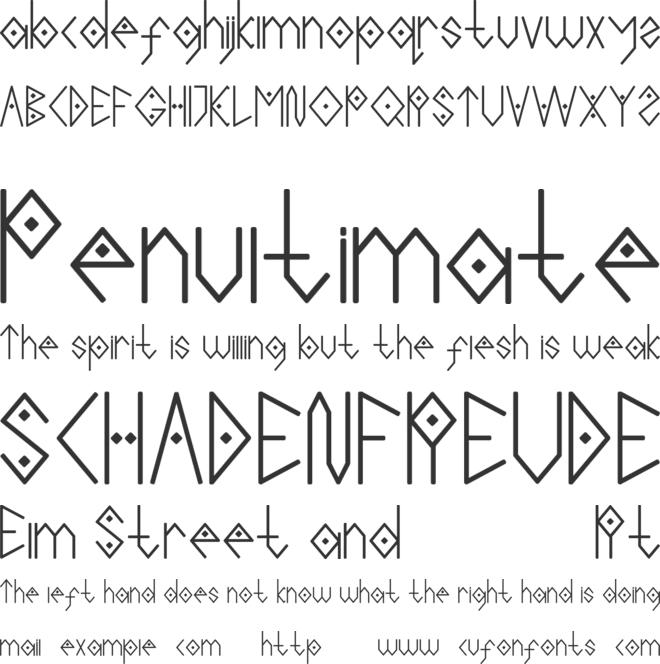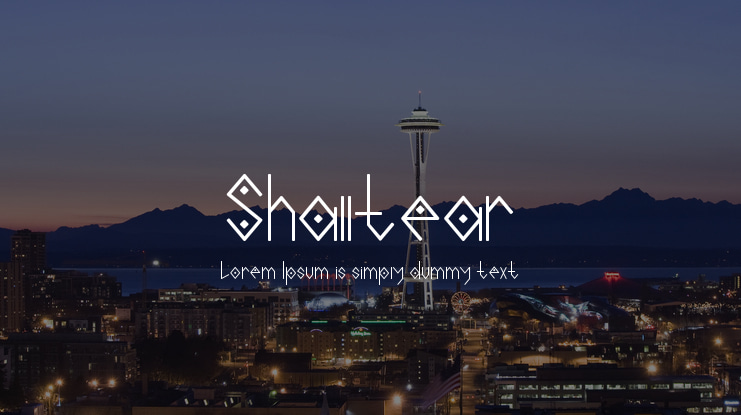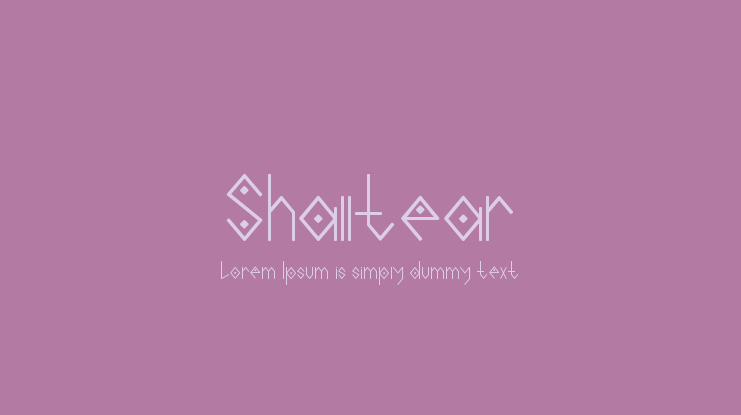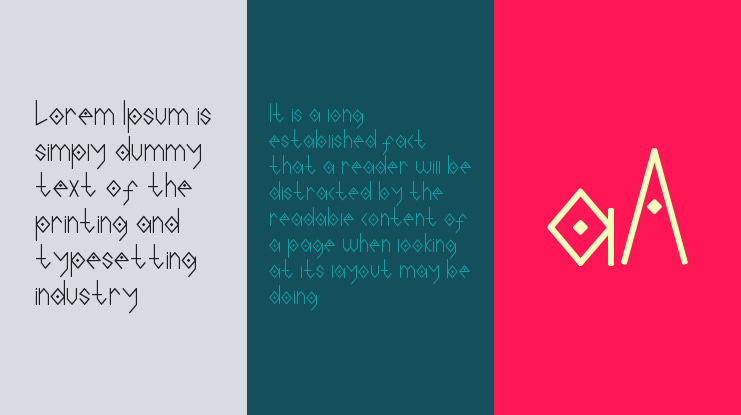
Shalltear Font
Shalltear is a display font decorated with tribal patterns. The typeface includes Decorative, Black and Symbol versions. The font is easy to use in various design programs or without any program.
Shalltear font is suitable for lettering posters and cards, tourist brochures, photo overlays, book covers and article titles. The font works great both for printing clothes and craft products branding and packaging (floristics, soap making, natural cosmetics). Also use individual letters to create logos and monograms.